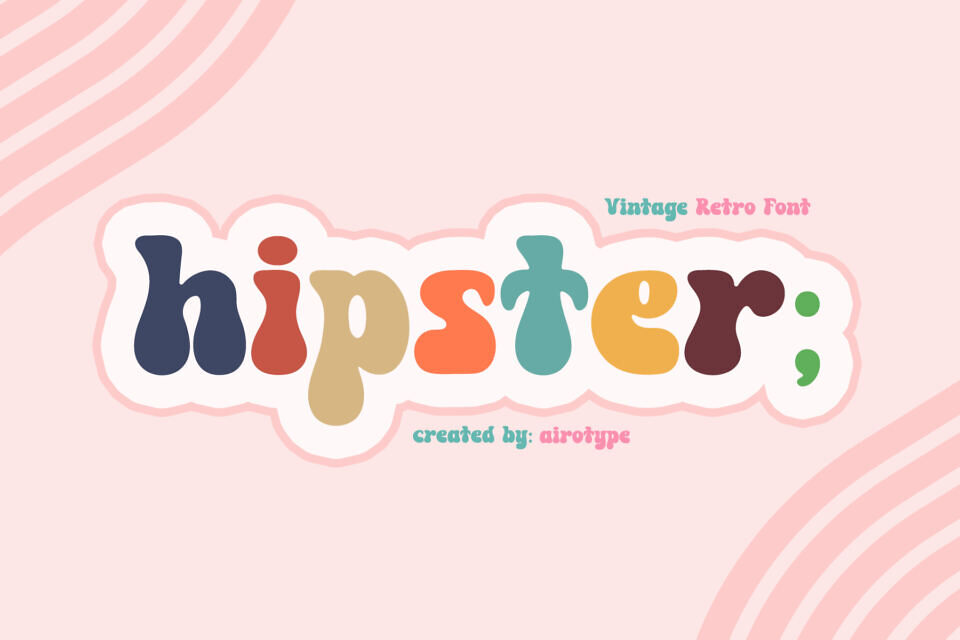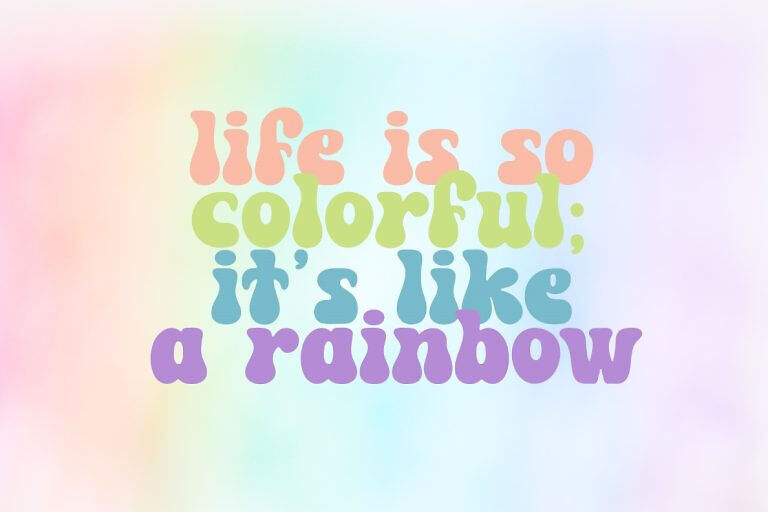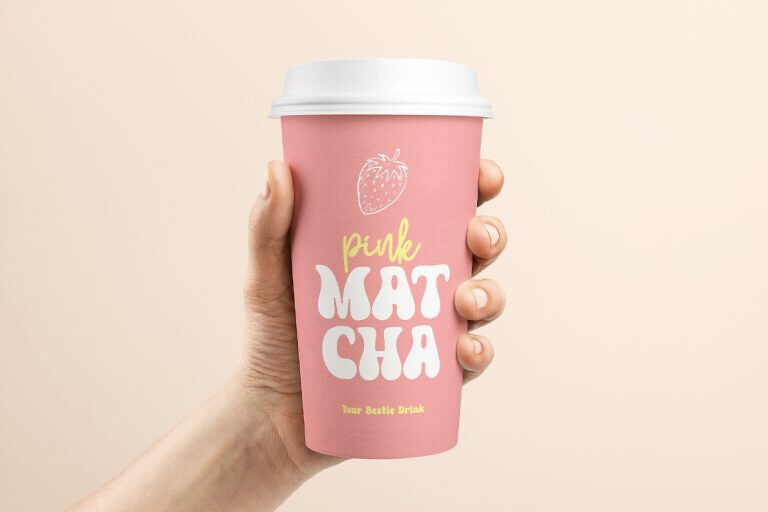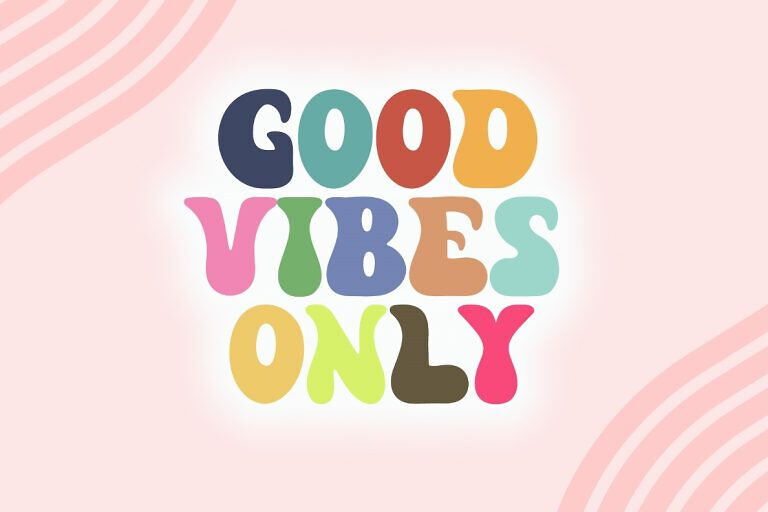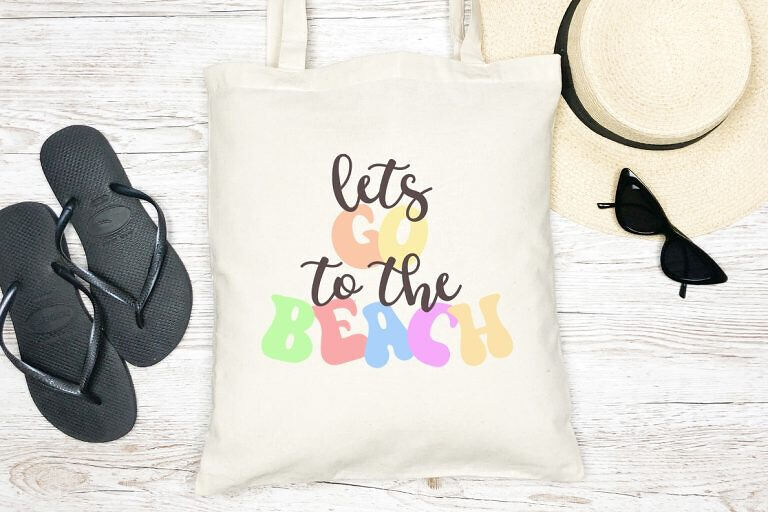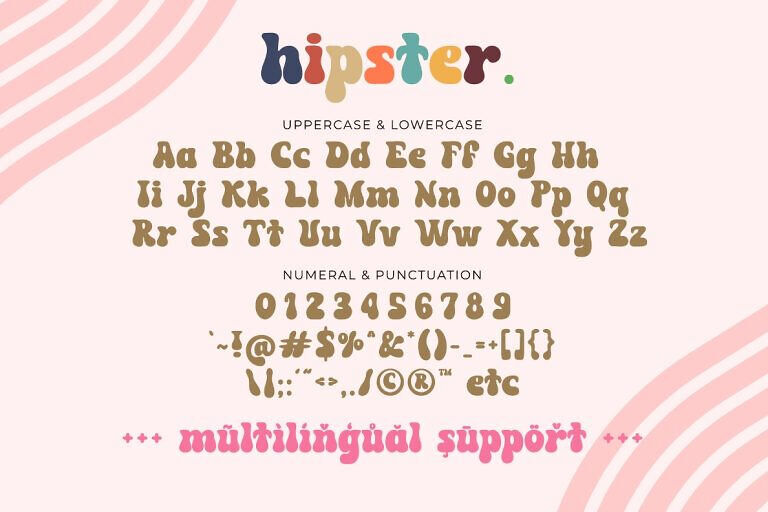
Hipster Font
Hipster is cute, fun, and playful retro font. It has vintage looks with its cuteness inside.
This font is perfect for any projects, especially with vintage style, such as logo, crafting, wedding invitation, branding, sticker, sublimation, quotes, and many more.